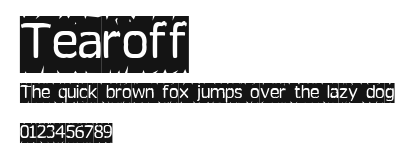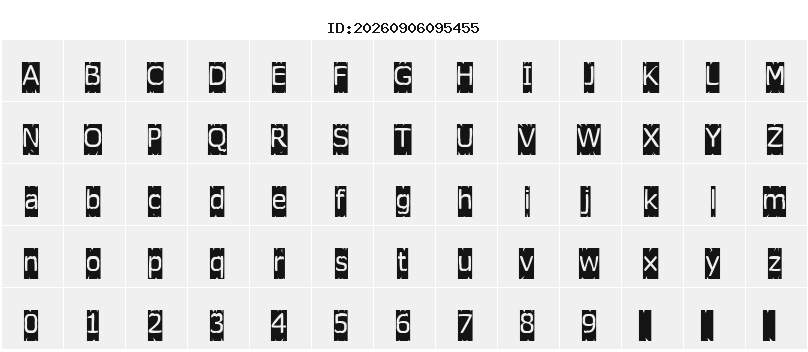
Tearoff Preview
• Font Name: Tearoff
• Full Font Name: Tearoff
About Tearoff.ttf
Tearoff.ttf is a modern, elegant sans-serif font designed for ultimate readability and visual harmony. Perfect for branding, headlines, web design, and print materials.